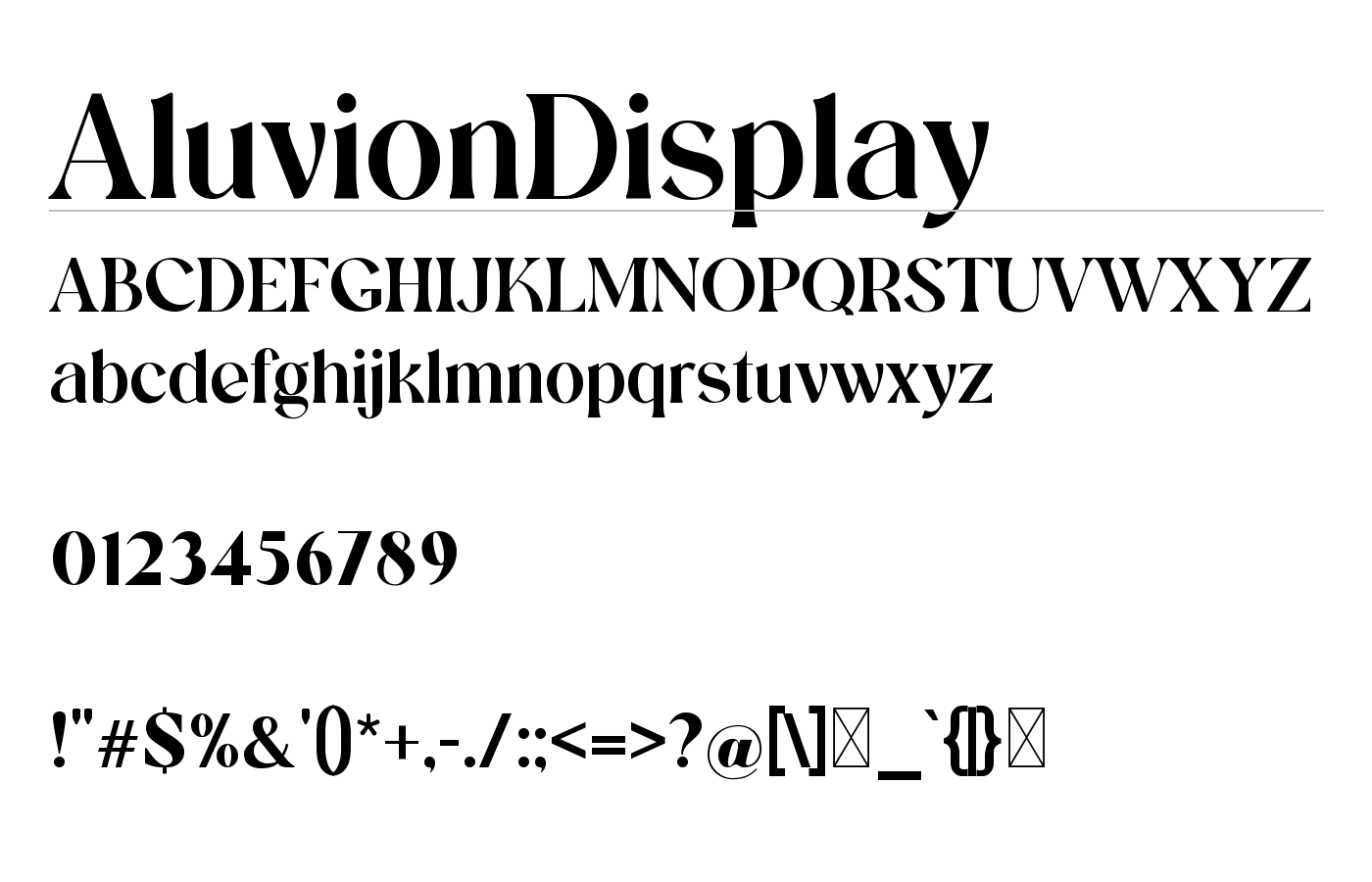
AluvionDisplay is a sophisticated serif font with a strong contrast between thick and thin strokes, exuding elegance and refinement. Its sharp, bracketed serifs and high x-height give it a modern yet classic feel, making it perfect for luxury branding, editorial headlines, and stylish packaging. This font stands out with its distinctive letterforms and balanced spacing, lending a sense of authority and grace wherever it is used.
AluvionDisplay Font